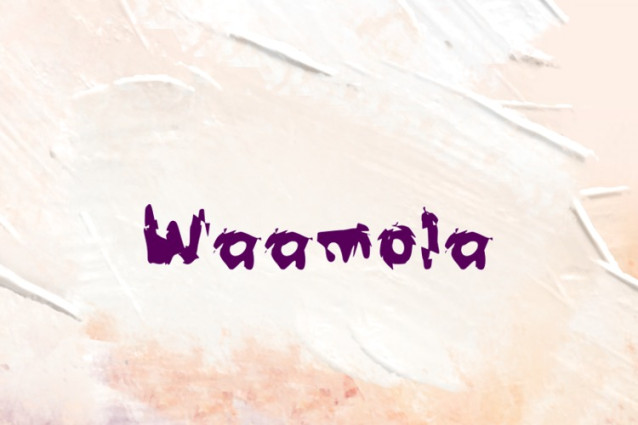
Waamola Font
Waamola Font, perfectly fit for branding, logo, wedding things, greeting cards, fashion, lookbook, marketing promotion, zanytime you want to look fancy elegant but still casual.